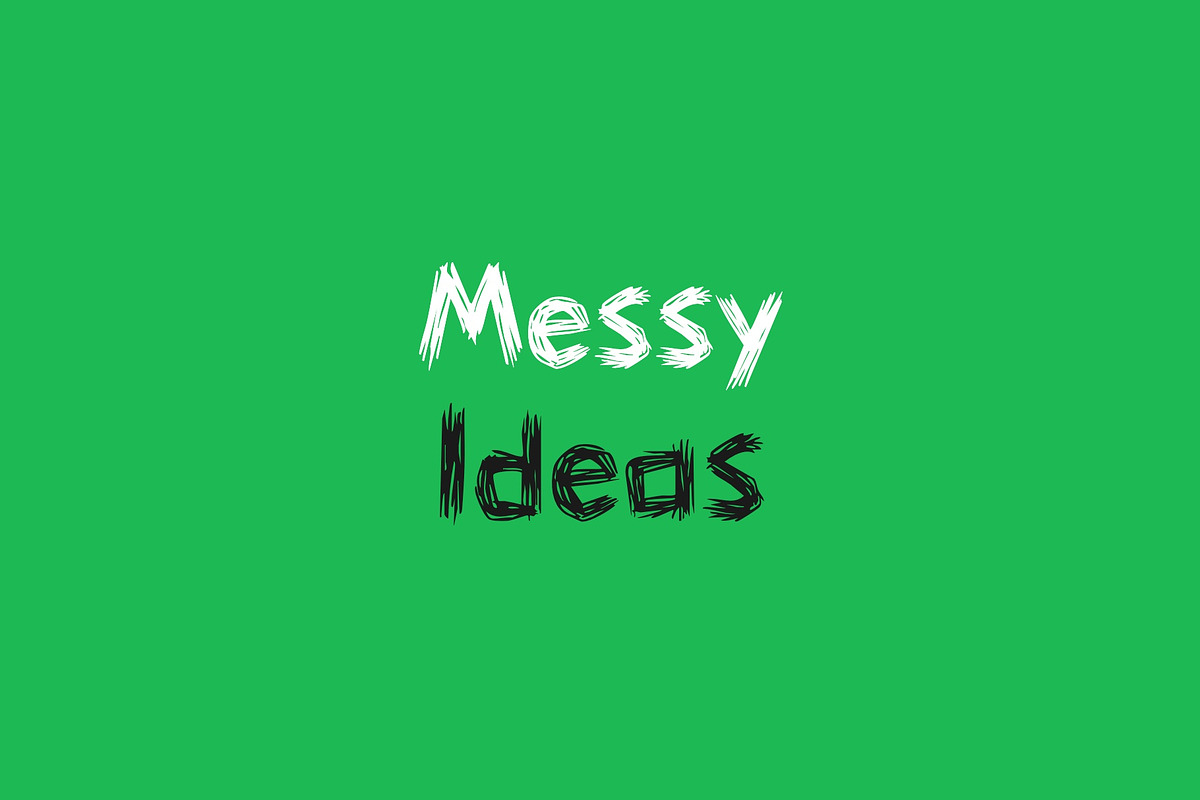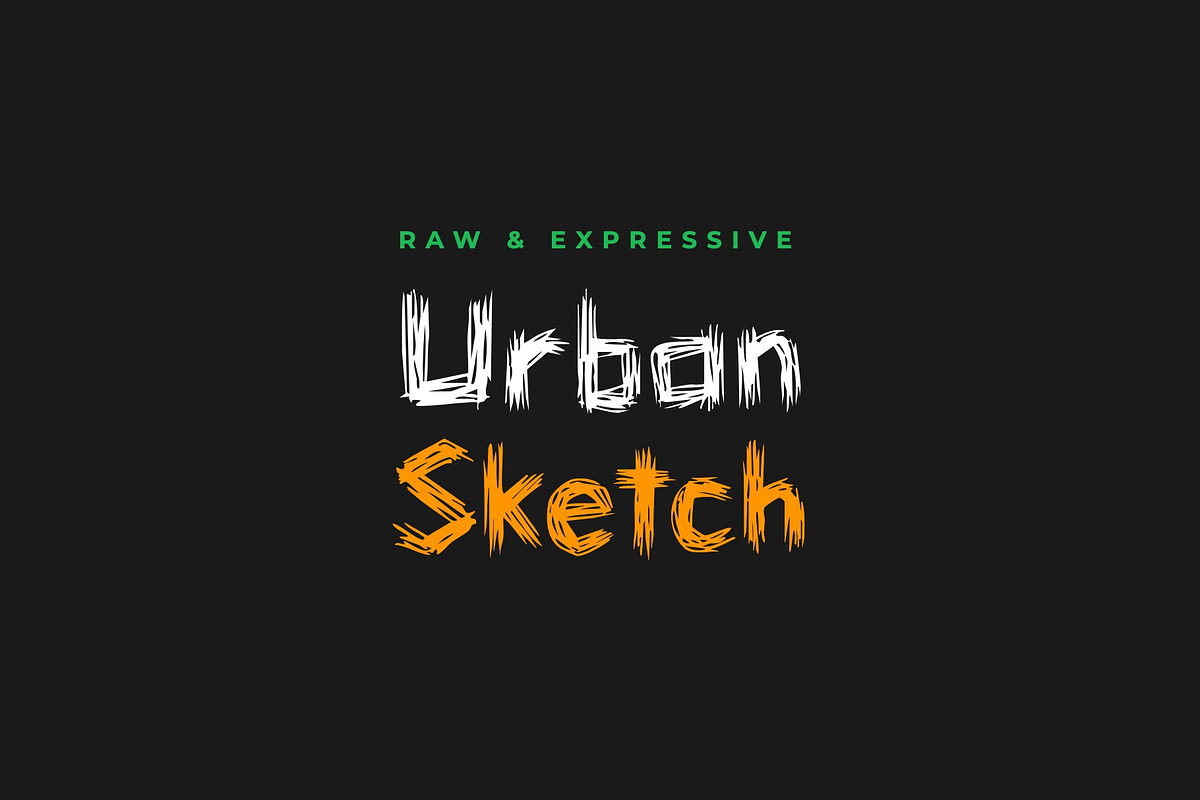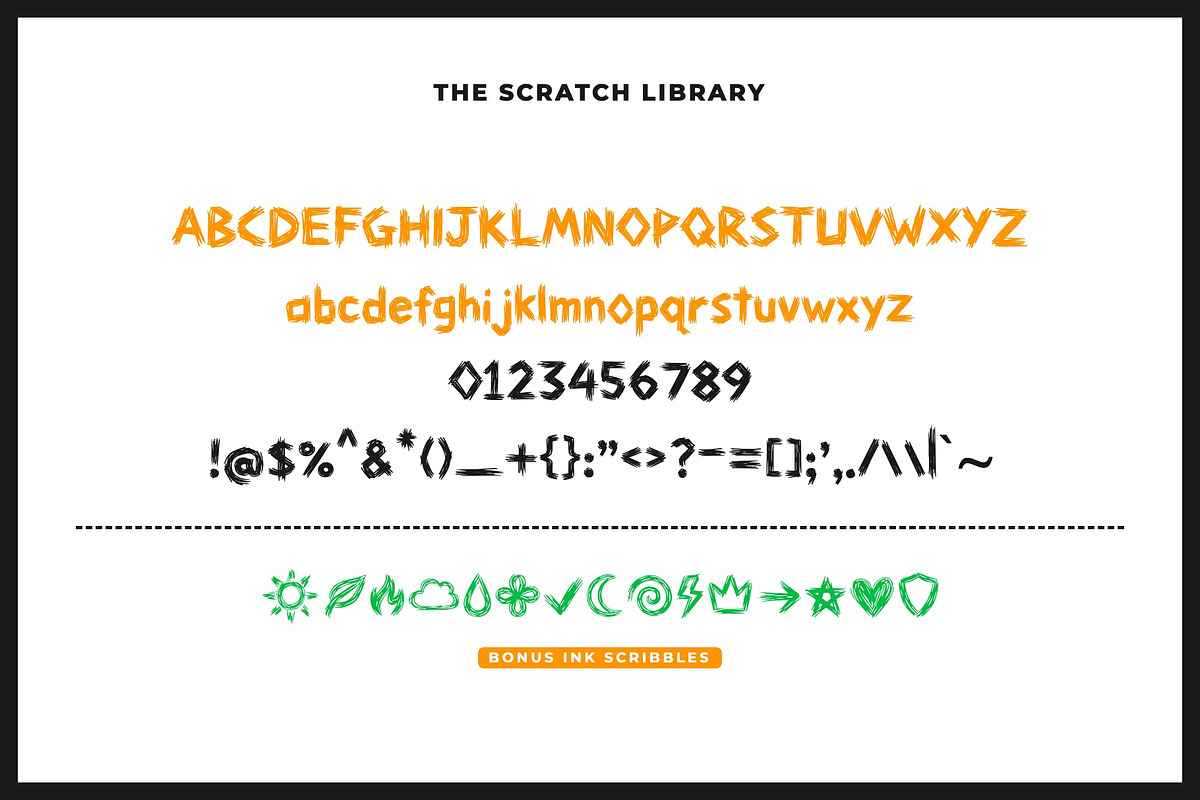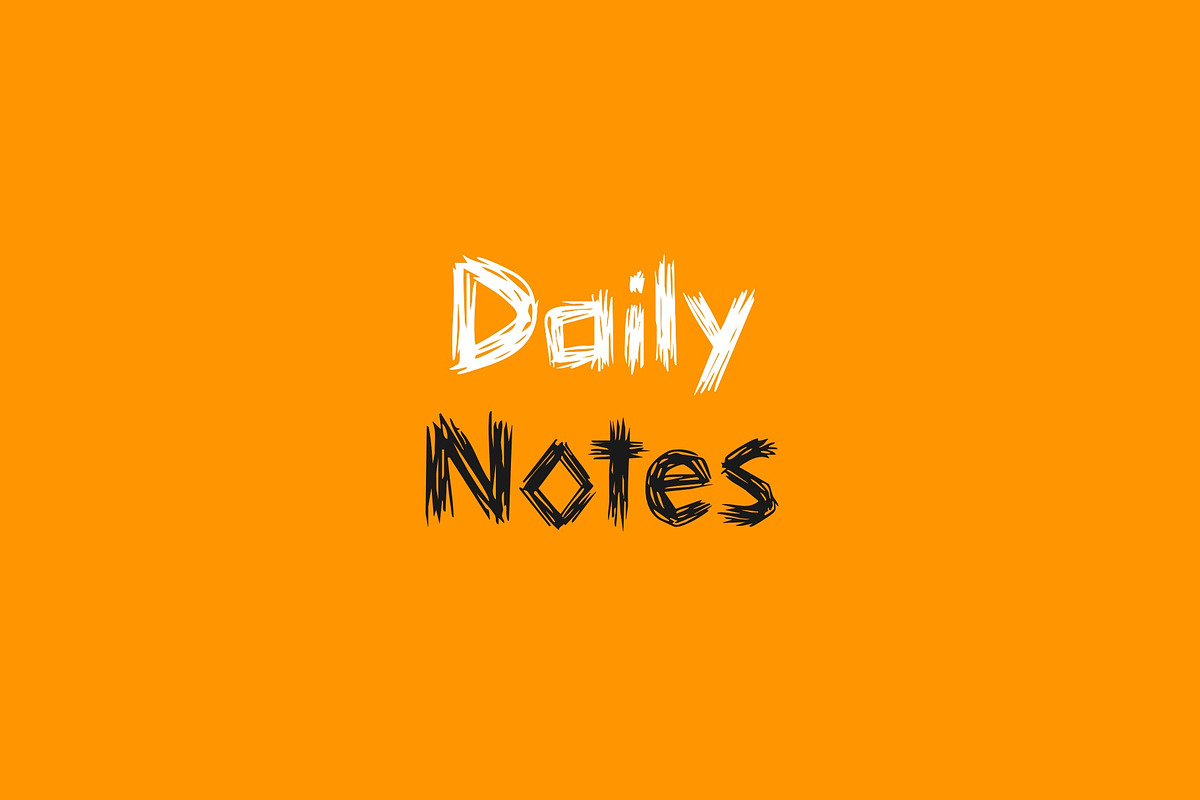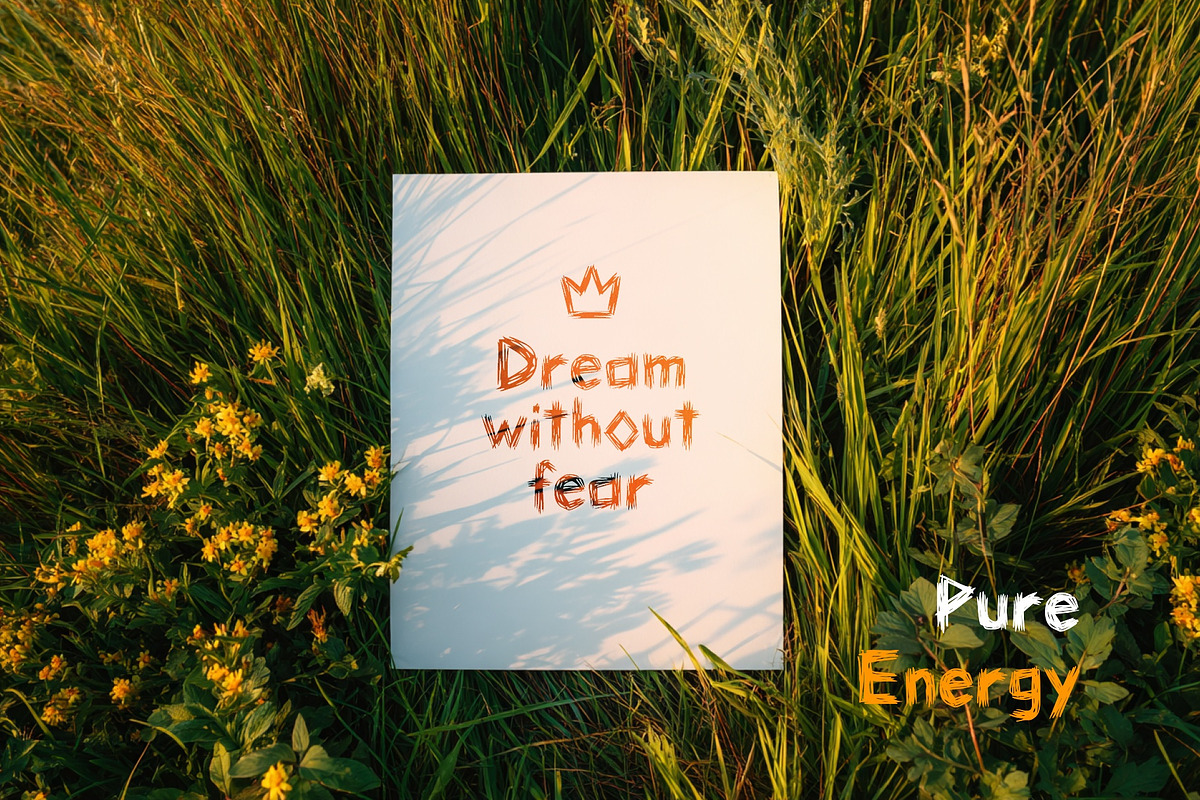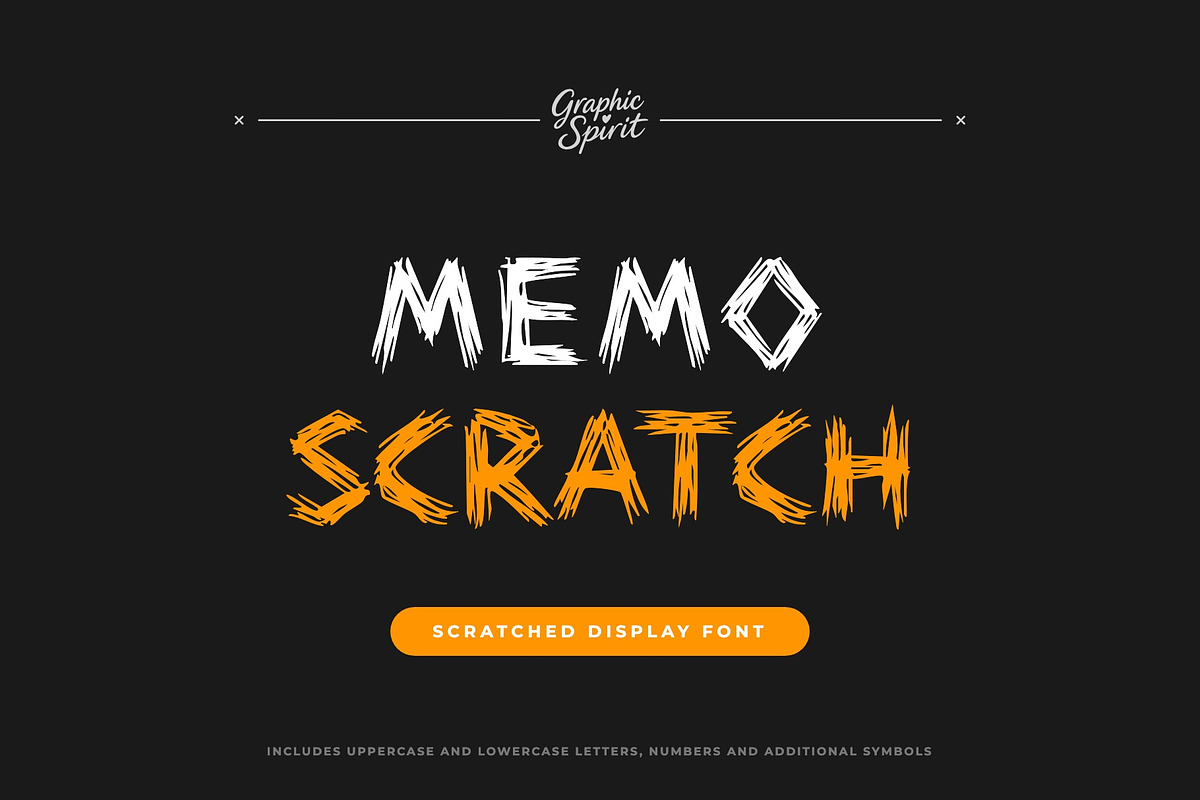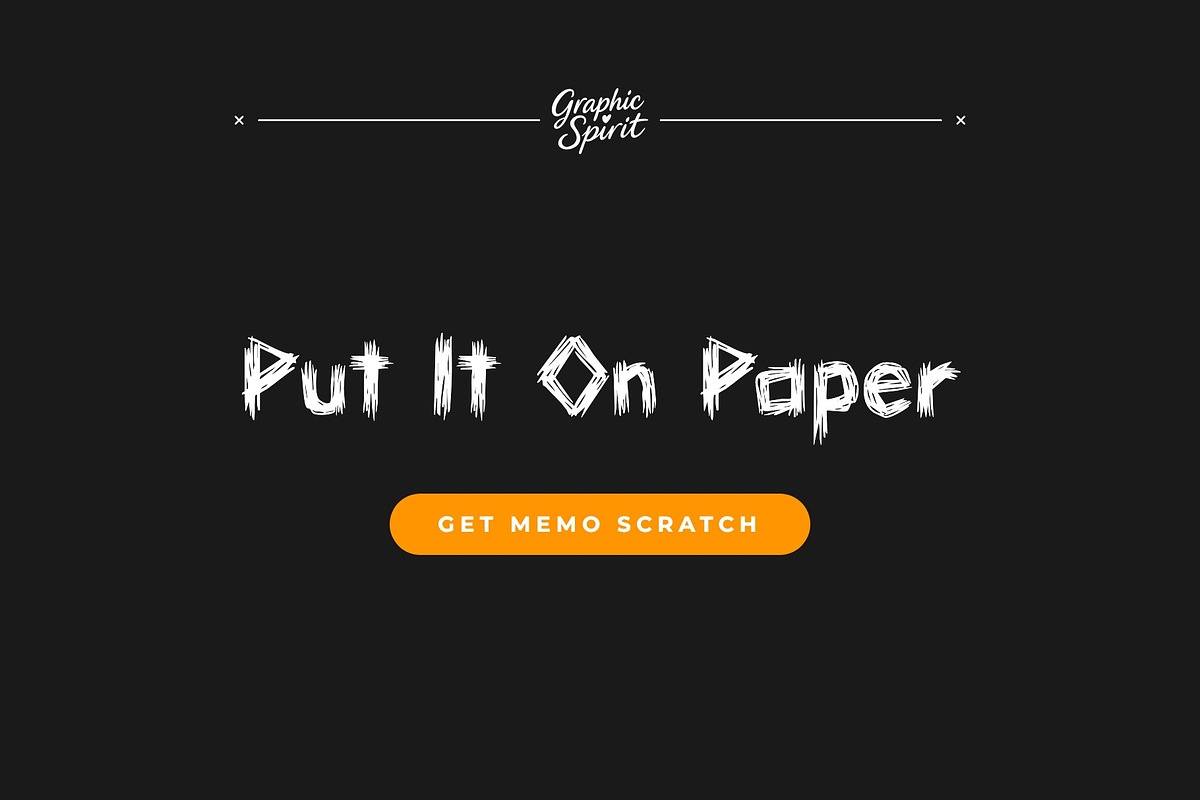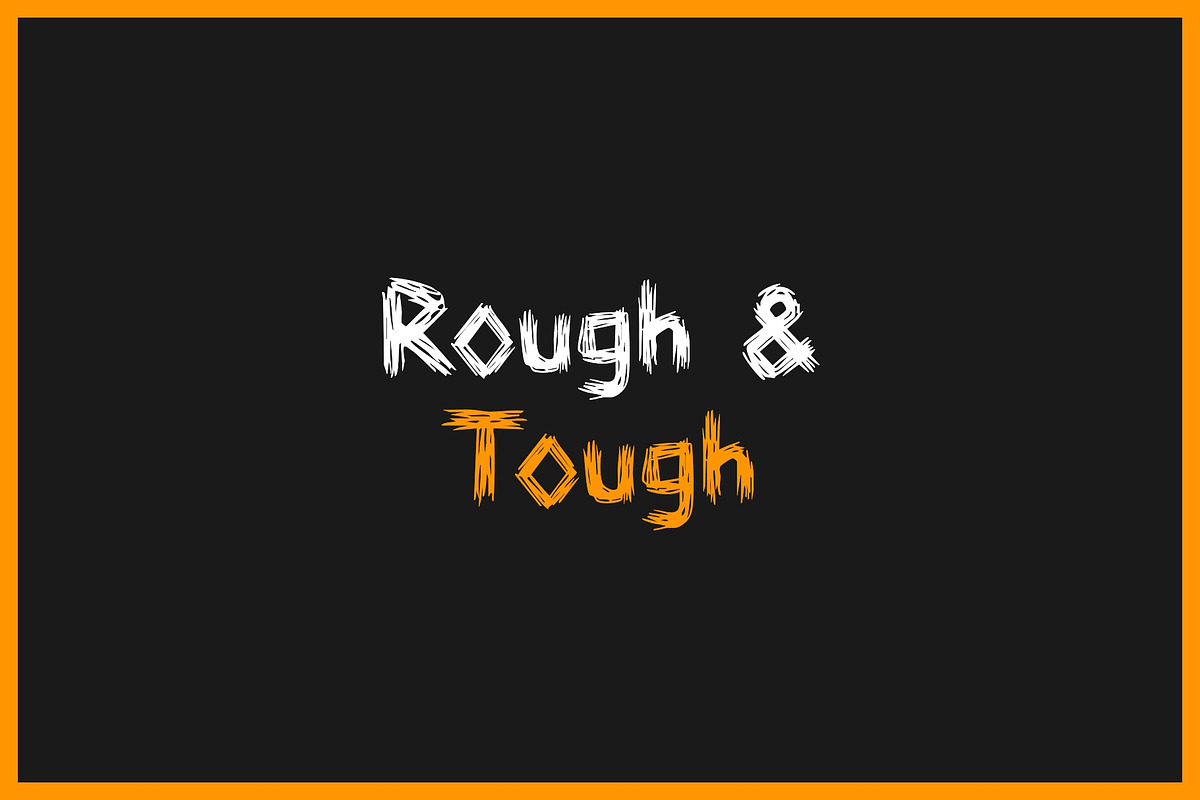
Memo Scratch Decorative Font
Memo Scratch is a casual and authentic handwritten font that brings a notebook-inspired storytelling vibe to modern design projects. As a digital download, it offers natural pen flows and a relaxed aesthetic, ideal for designers seeking a spontaneous and charming look for their branding or journaling work. The typeface's scribbled construction and informal lines ensure a personal presence in any creative layout.
Designed for spontaneity and charm, Memo Scratch is perfect for everything from casual logos to personal social media graphics. Its state-of-the-art design includes notebook-style geometric elements that allow you to customize your typography with a truly bespoke feel. Elevate your creative toolkit with this versatile font that balances authentic charm with the power of casual storytelling for impactful results.